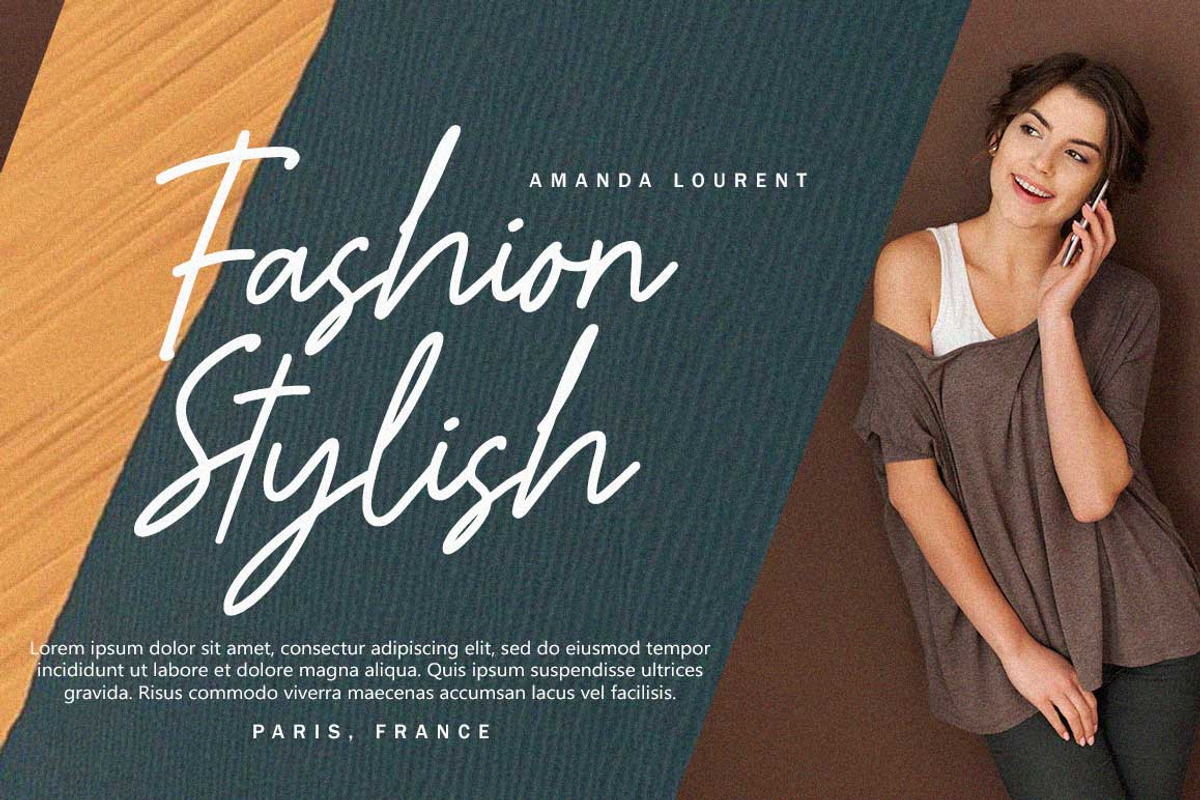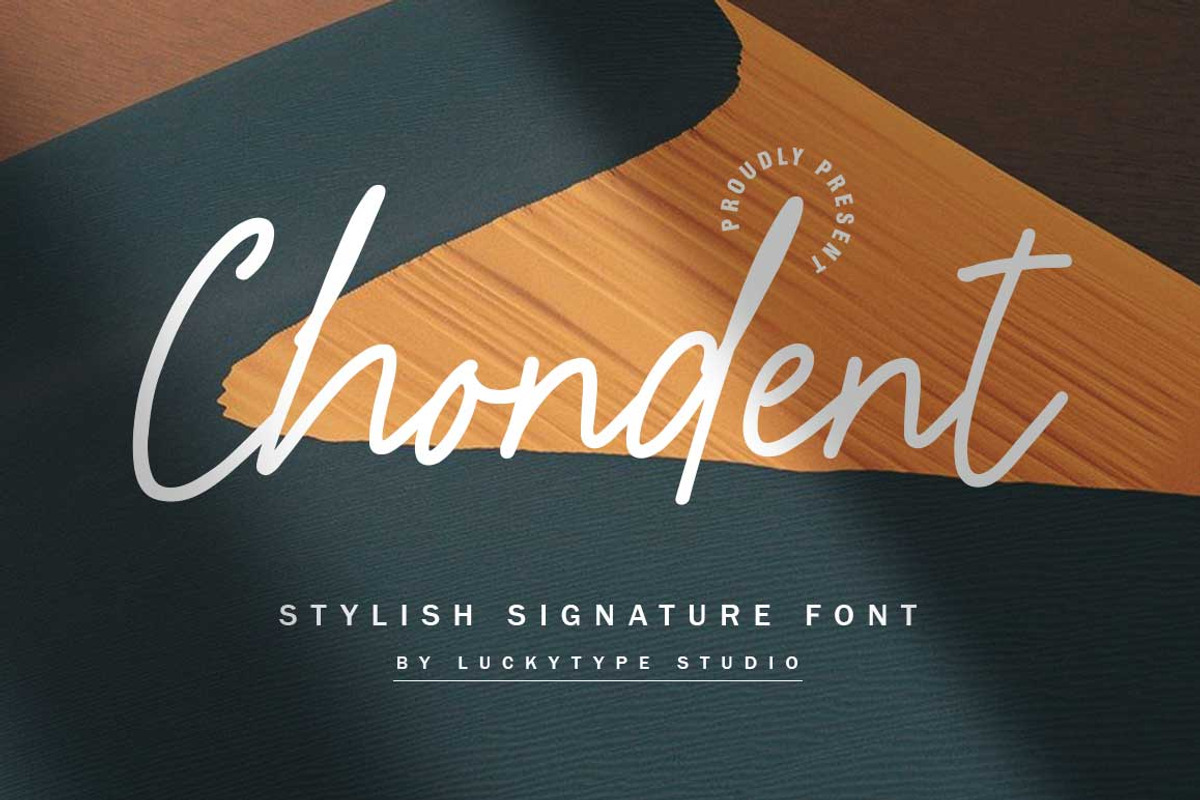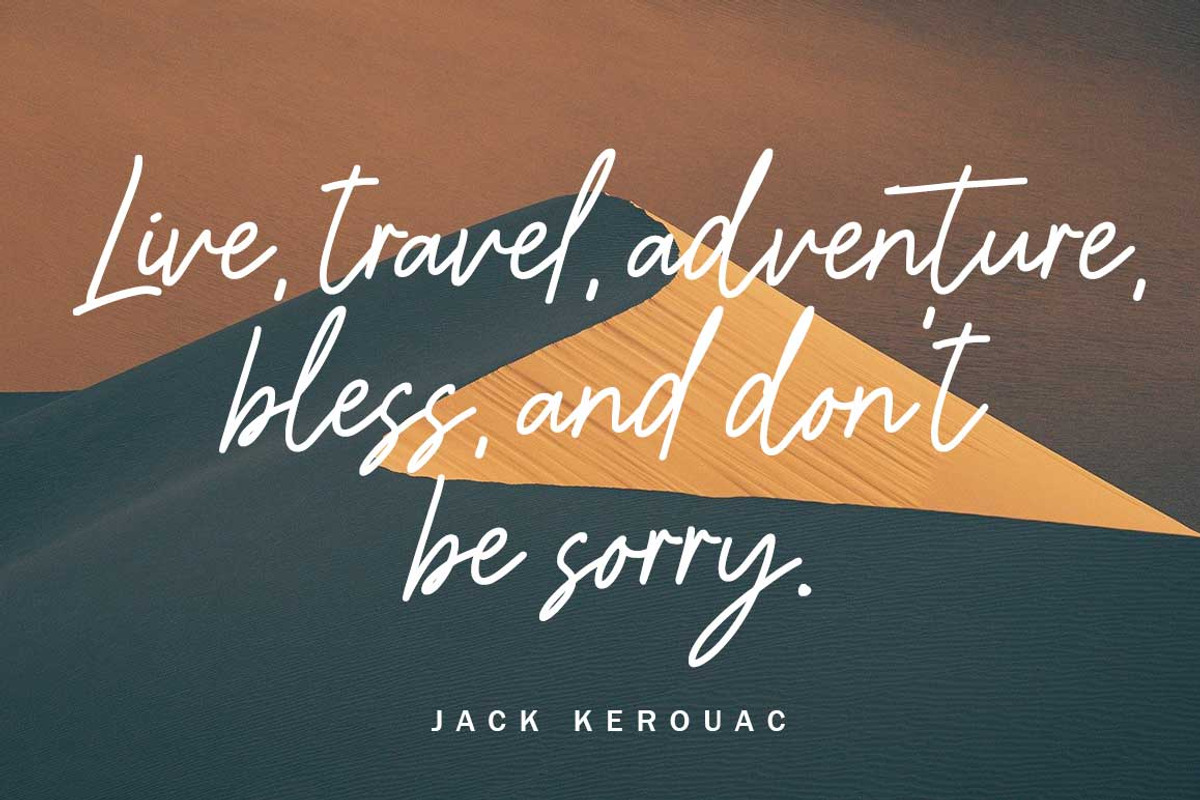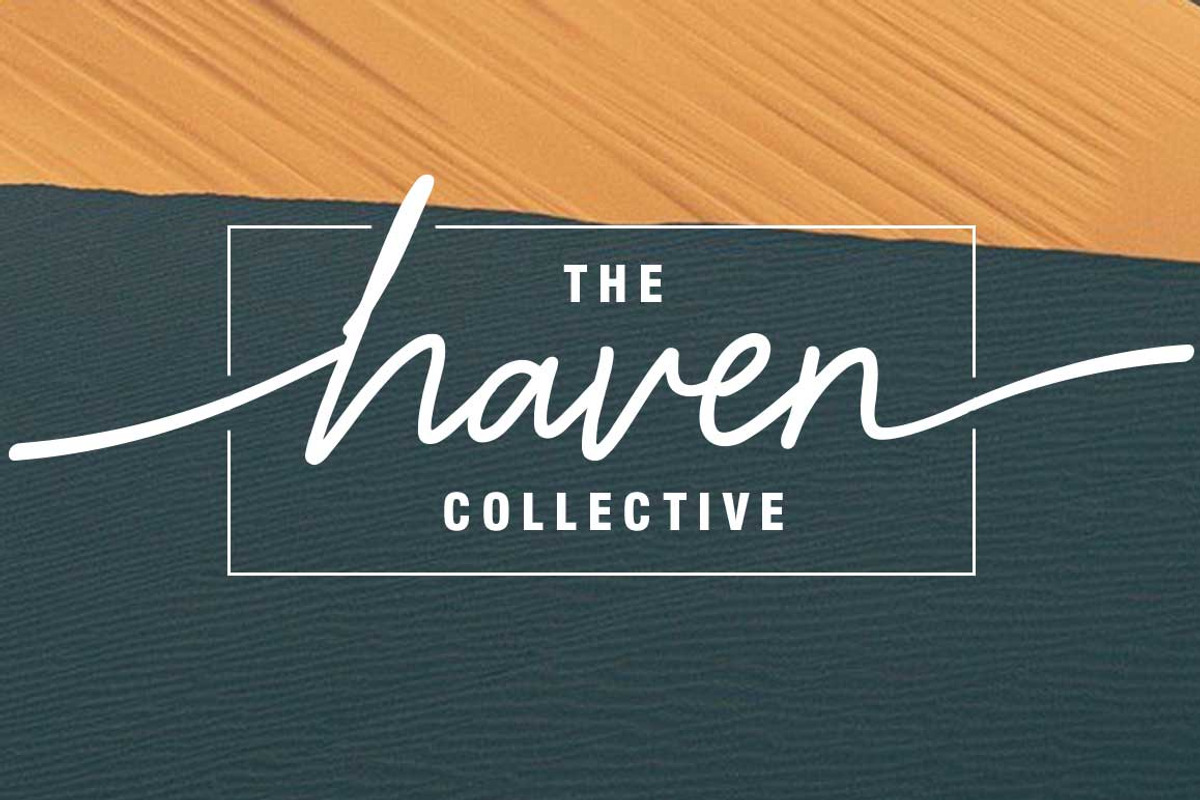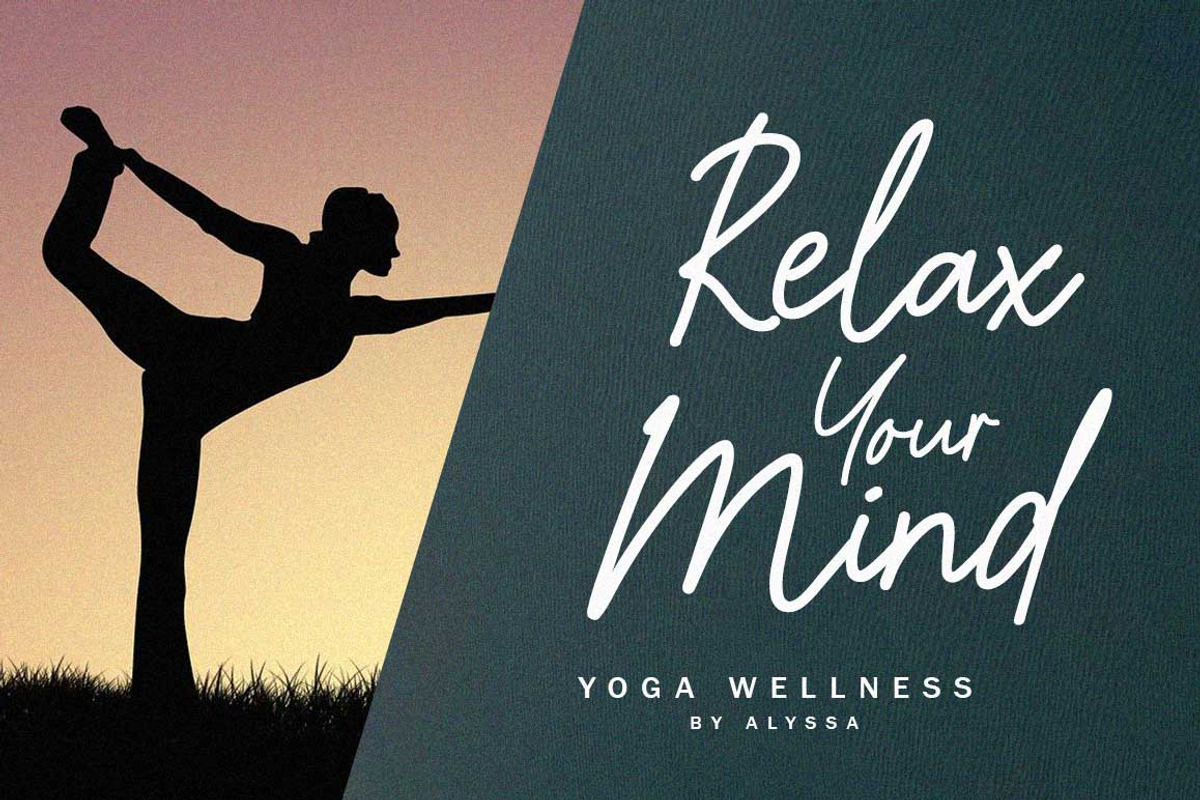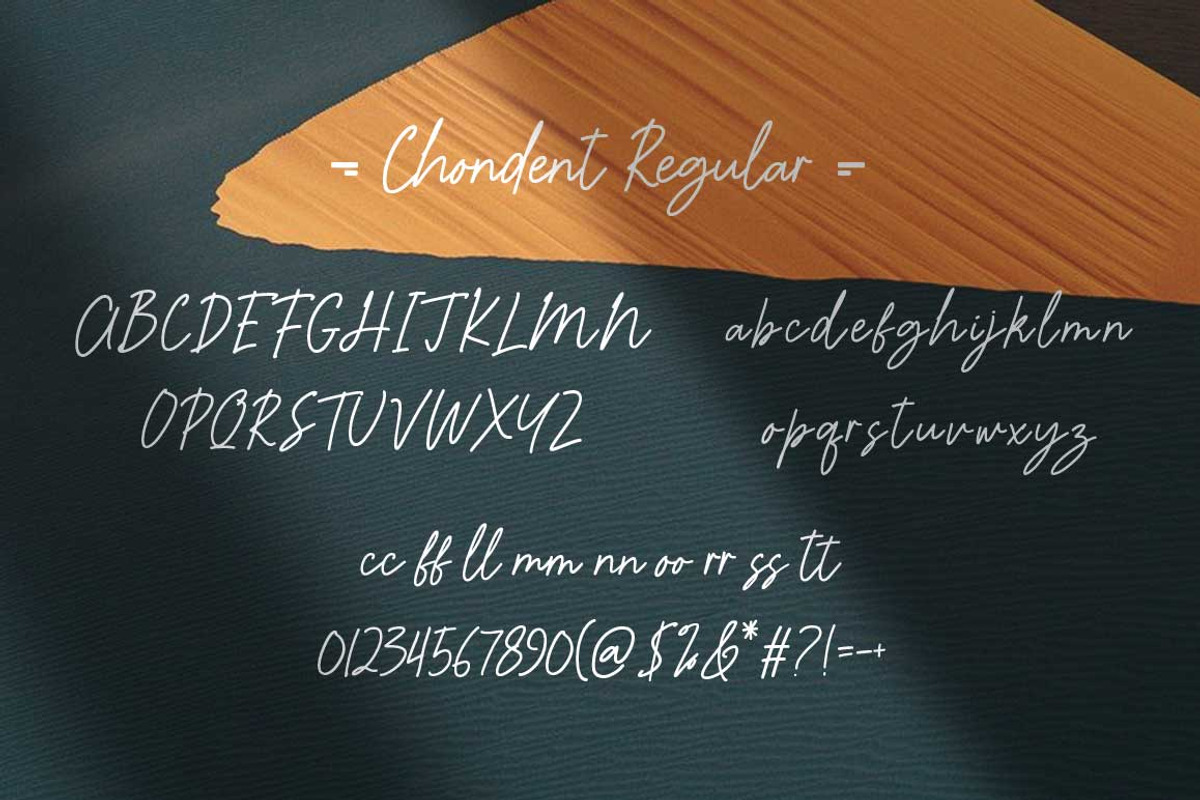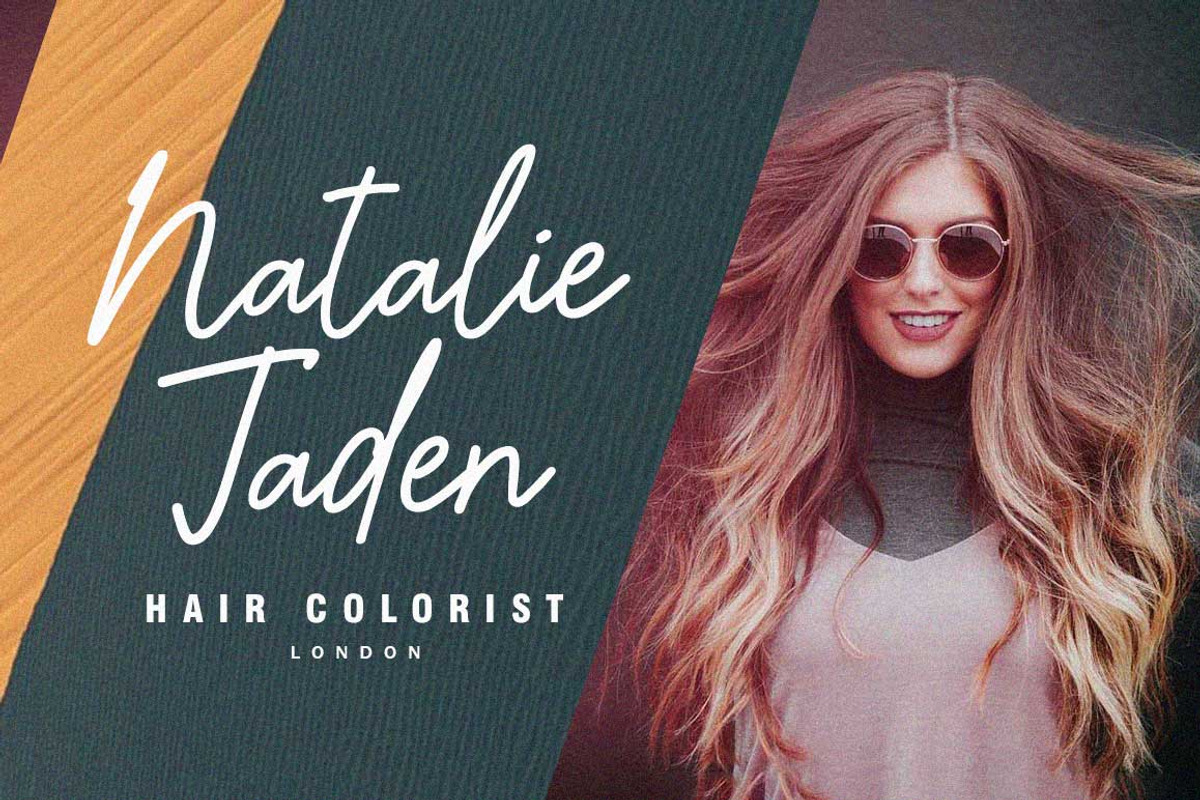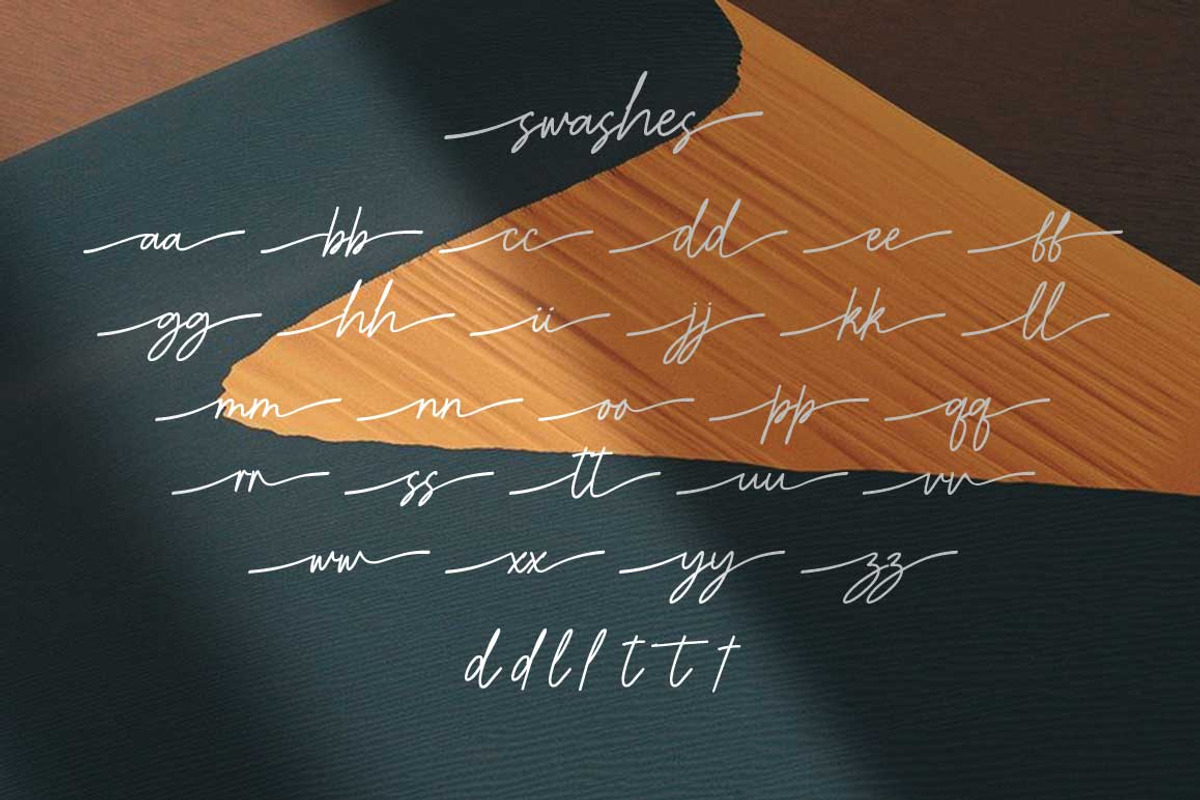
Chondent
Chondent is a beautiful new signature font. This font is casual and beautiful with swashes. Can be used for various needs for your next luxury design. such as logos, product packaging, wedding invitations, branding, headlines, signage, labels, signatures, book covers, posters, quotes, and many more. Thank you very much for viewing.